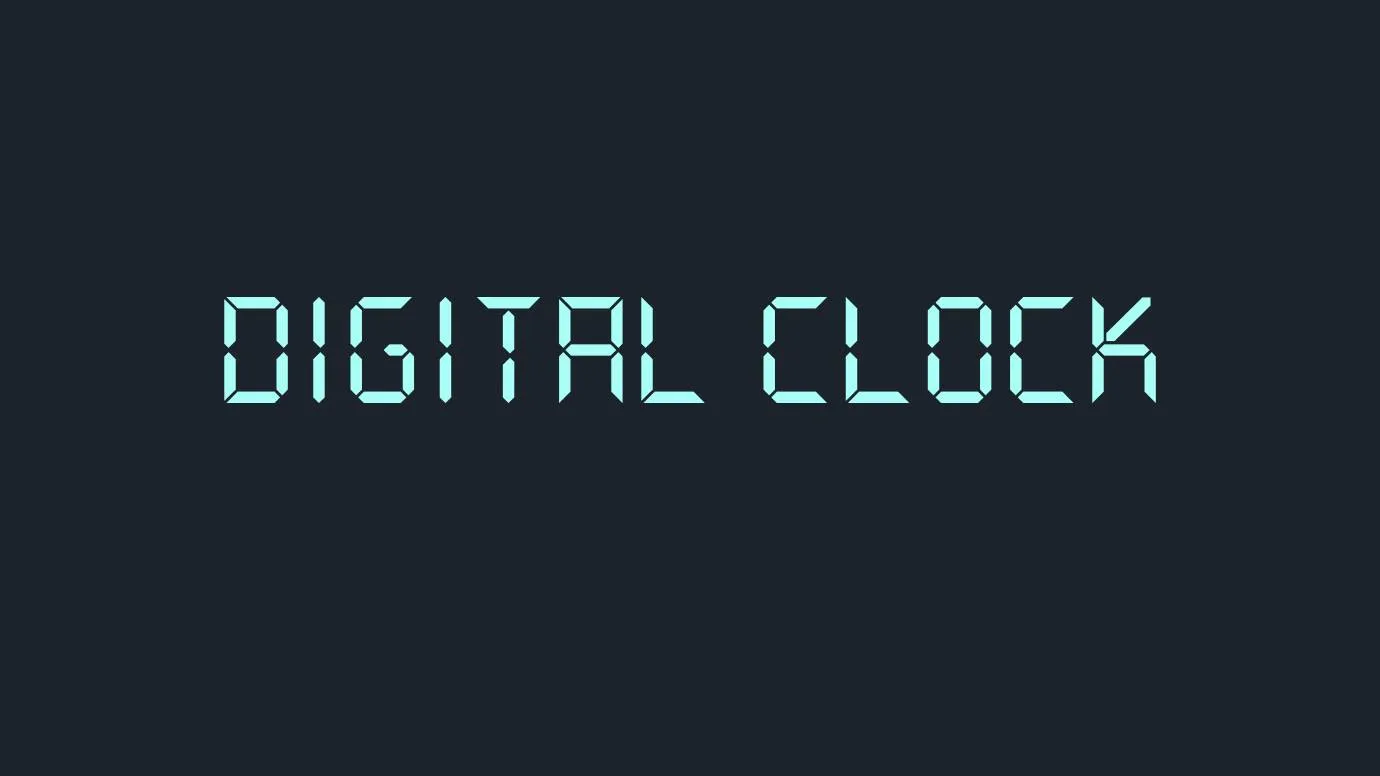
Digital Clock Font Family is a unique typeface that goes under the name Digital Clock Font. This awesome typeface is totally unique and different from other typefaces. This texture lies in the category of the fancy family of fonts.